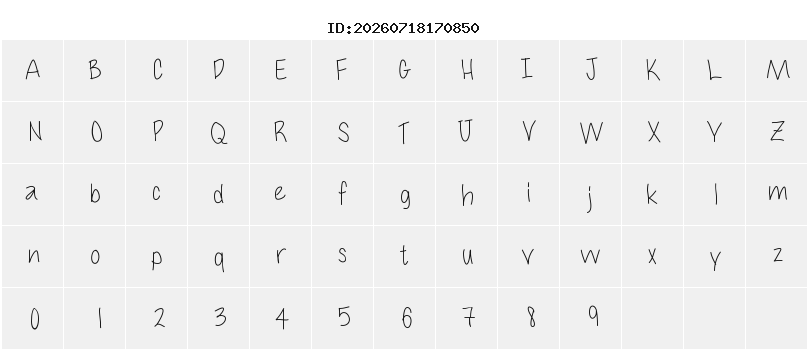
• Font Name: Cuteness
• Full Font Name: Cuteness
About Cuteness.ttf
Cuteness.ttf is a modern, elegant sans-serif font designed for ultimate readability and visual harmony. Perfect for branding, headlines, web design, and print materials.